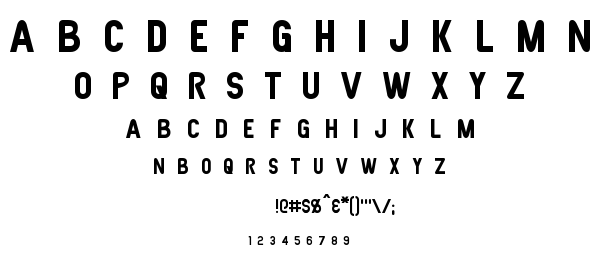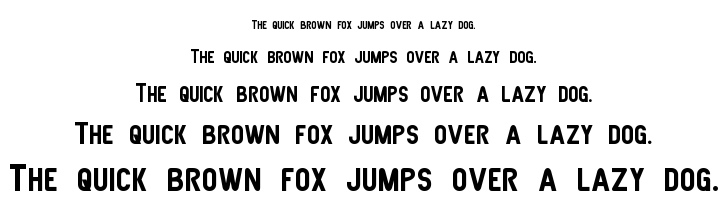
This was originally intented to be based on the old 2600 cartridge font, but the sample I used was from something more modern, so I wound up making a new and improved version of that font instead. Ah well, client was okay with it. 1.10 Update: Added accent characters and extended punctuation. Also tweaked a handful of glyphs to make them more clear.